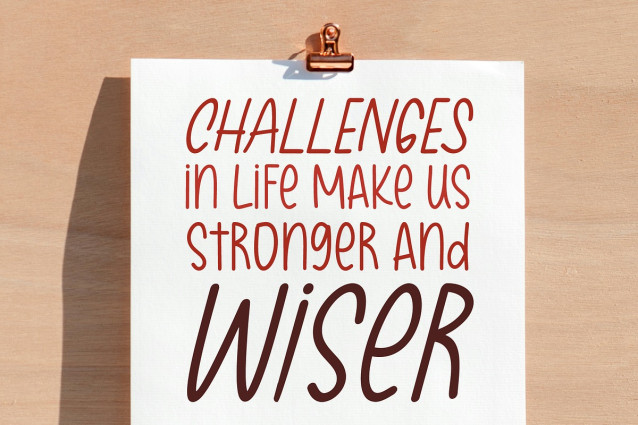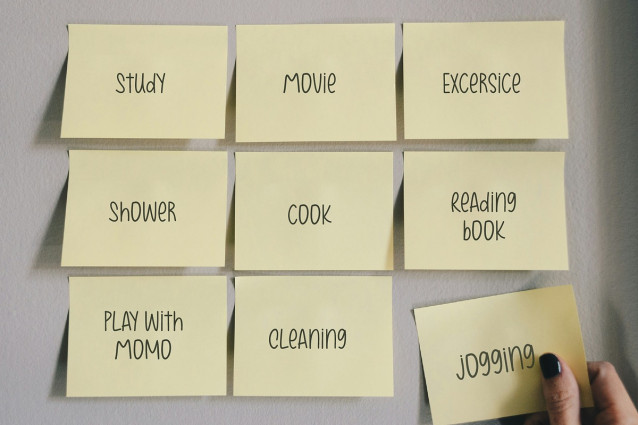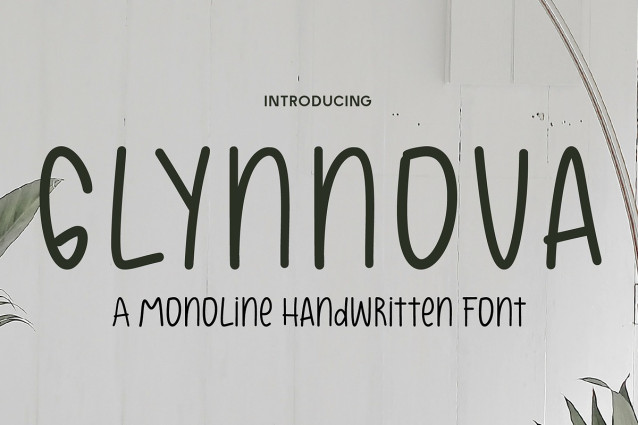
CF Glynnova Font
CF Glynnova Font is a playful and approachable monoline handwritten font that captures the ease and spontaneity of casual penmanship. With tall x-height, rounded terminals, and consistent stroke width, Glynnova exudes warmth and personality, making it an excellent choice for projects that require a human touch.
Perfect for branding, social media posts, packaging, children’s designs, greeting cards, and lifestyle blogs, this font strikes a balance between informal charm and modern simplicity. Each character is thoughtfully designed to maintain legibility while preserving a handcrafted feel. Whether you’re working on a fun headline, quirky product label, or personalized stationery, Glynnova brings joy and clarity to your words with a uniquely fresh voice.